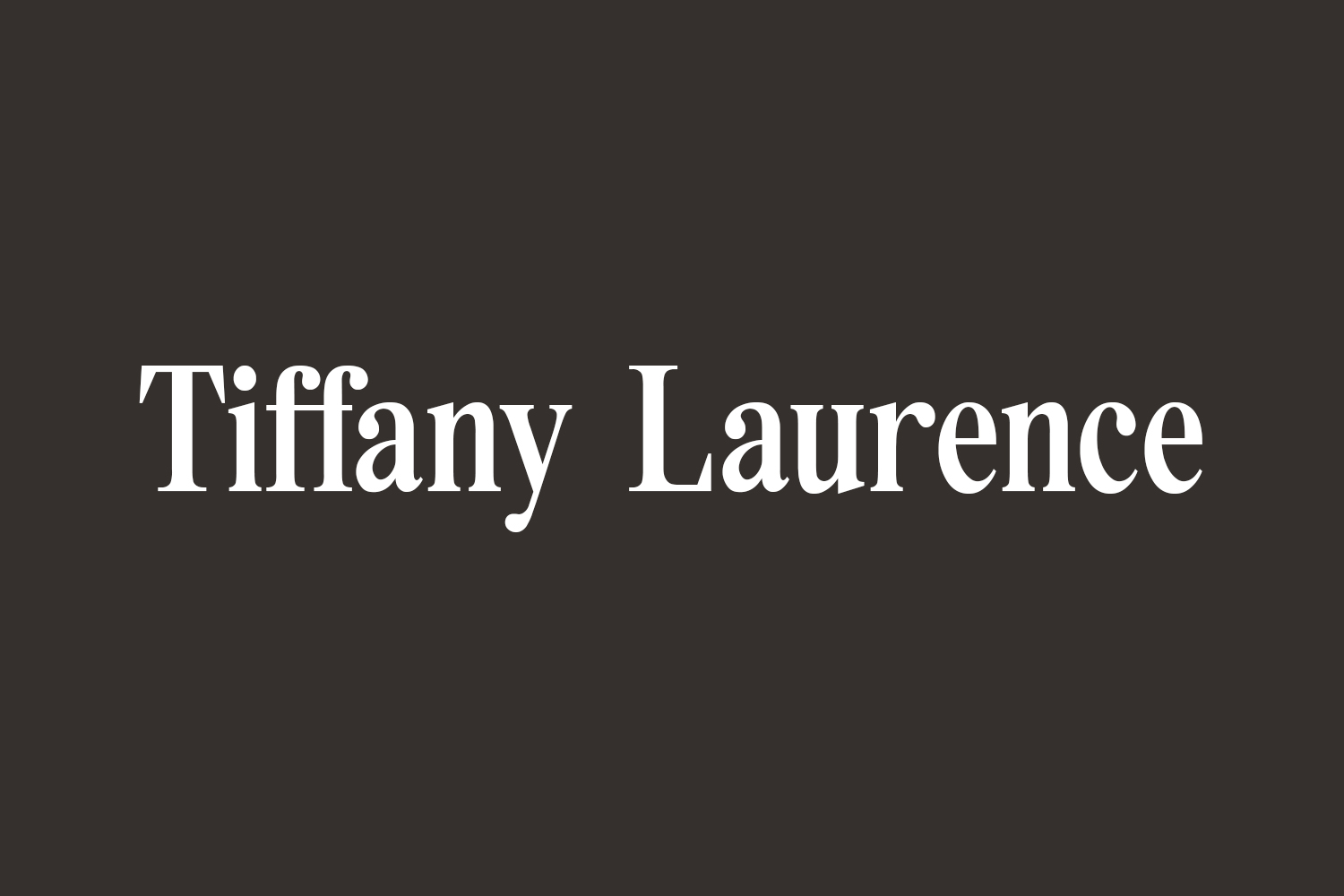
Introducing Tiffany Laurence Free Font, an elegant typeface reminiscent of 1980s magazine aesthetics, complete with accompanying italic styles. Each version is available in two renditions: one exuding enhanced contrast and sharpness. Embodying the true essence of the Eighties, this font exudes a premium aura, perfectly catering to your design requisites. Be it invitations, labels, logos, magazines, books, greeting or wedding cards, packaging, fashion, makeup, stationery, novels, or diverse advertising needs, this font encapsulates it all with a touch of sophistication. Tiffany Laurence Free Font is free for personal use only. Please purchase the full version for commercial use.